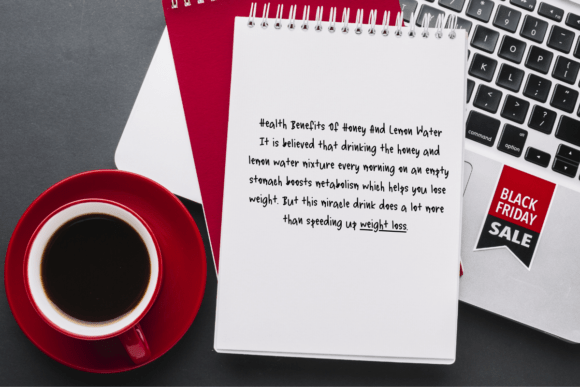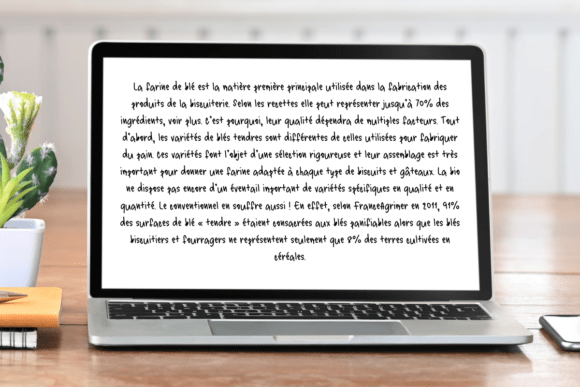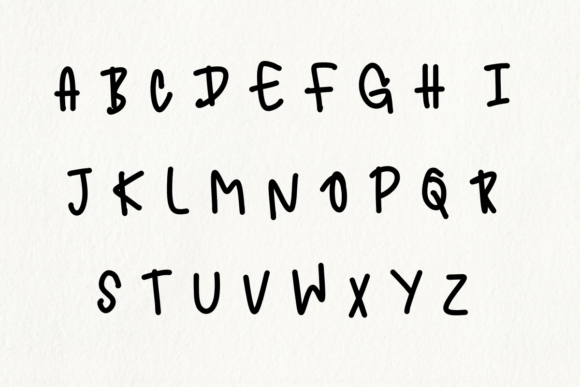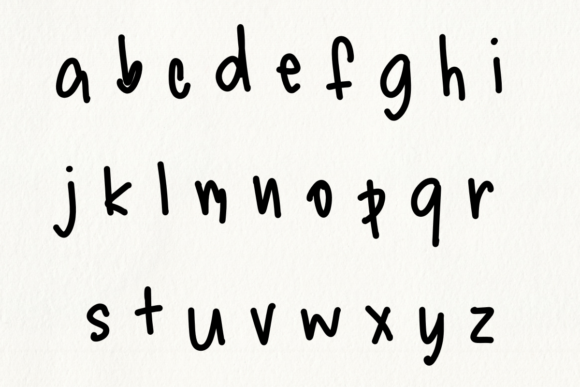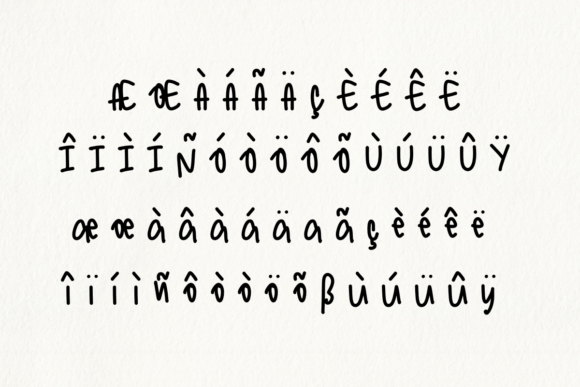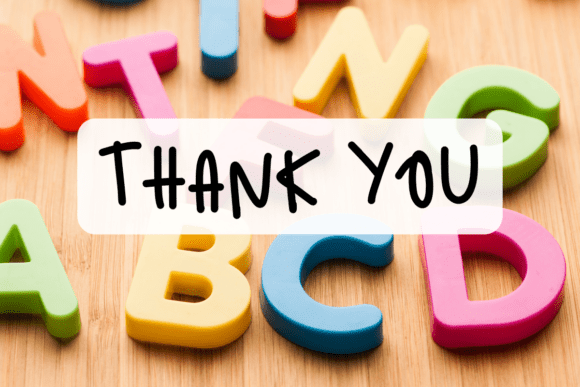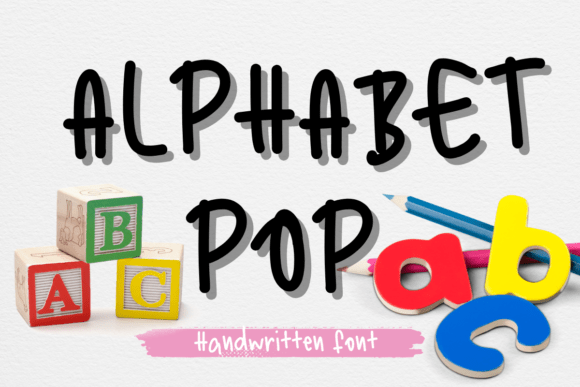
Introducing Alphabet Pop Font: The Ultimate Handwritten Font for Fun and Creativity
Are you a designer, crafter, or DIY enthusiast looking for a font that can add a touch of playfulness and whimsy to your projects? Look no further than Alphabet Pop Font, a modern handwritten font that is sure to delight kids and adults alike. With its bubbly, fun style, Alphabet Pop Font is perfect for creating kid-friendly designs, cards, logos, and digital projects that are sure to stand out.
What Makes Alphabet Pop Font So Special?
Alphabet Pop Handwritten is a cute, modern handwritten font that boasts a unique and charming style. Its bubbly, fun aesthetic makes it perfect for designs that require a playful touch, such as children’s party invitations, educational materials, and kids’ product branding. The font’s friendly and approachable feel also makes it ideal for creating engaging digital content, such as social media graphics, blog posts, and website headers.
Key Features of Alphabet Pop Font
- Full support for multiple languages: Alphabet Pop Font includes full support for Spanish, Italian, French, German, and Portuguese, making it a great choice for global projects and designs that require multilingual support.
- Cute and modern design: The font’s modern handwritten style is both fresh and adorable, making it perfect for designs that require a youthful and vibrant feel.
- Kid-friendly: Alphabet Pop Font is perfect for creating kid-friendly designs, such as children’s books, educational materials, and kids’ product branding.
- Versatile: The font is suitable for a wide range of design projects, including cards, logos, digital projects, and more.
Use Cases for Alphabet Pop Font
Alphabet Pop Font is a versatile font that can be used in a variety of design projects, including:
- Kid-friendly designs: Create engaging and fun designs for kids, such as children’s books, educational materials, and kids’ product branding.
- Cards and invitations: Use Alphabet Pop Font to create playful and whimsical cards and invitations for parties, birthdays, and other special occasions.
- Logos and branding: Create a fun and modern logo for your business or product with Alphabet Pop Font.
- Digital projects: Use the font to create engaging digital content, such as social media graphics, blog posts, and website headers.
Why Choose Alphabet Pop Font?
With so many fonts available, why choose Alphabet Pop Font? Here are just a few reasons:
- Unique and charming style: Alphabet Pop Font boasts a unique and charming style that is sure to stand out in any design project.
- Multilingual support: The font includes full support for multiple languages, making it a great choice for global projects and designs that require multilingual support.
Alphabet Pop Font is a modern handwritten font that is perfect for designers, crafters, and DIY enthusiasts who want to add a touch of playfulness and whimsy to their projects. With its cute and modern design, multilingual support, and versatility, Alphabet Pop Font is a great choice for a wide range of design projects. Whether you’re creating kid-friendly designs, cards, logos, or digital projects, Alphabet Pop Font is sure to delight and inspire.